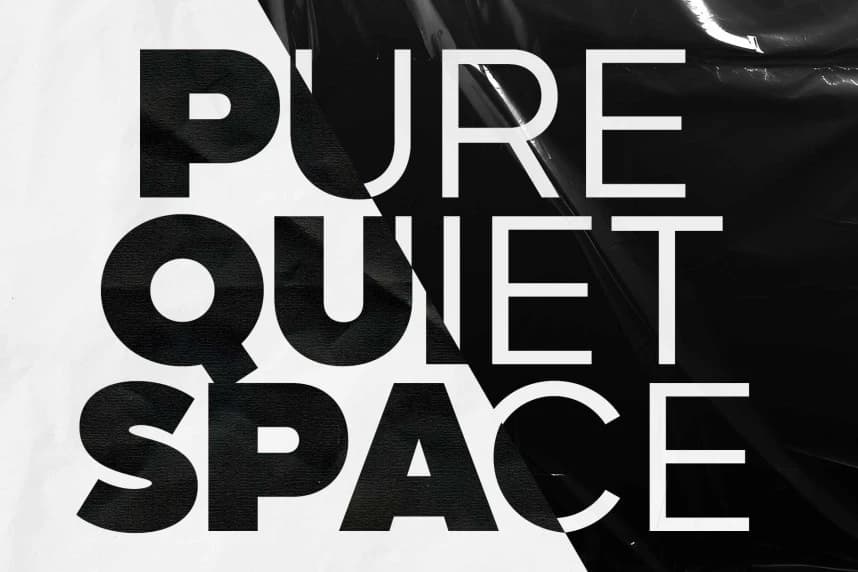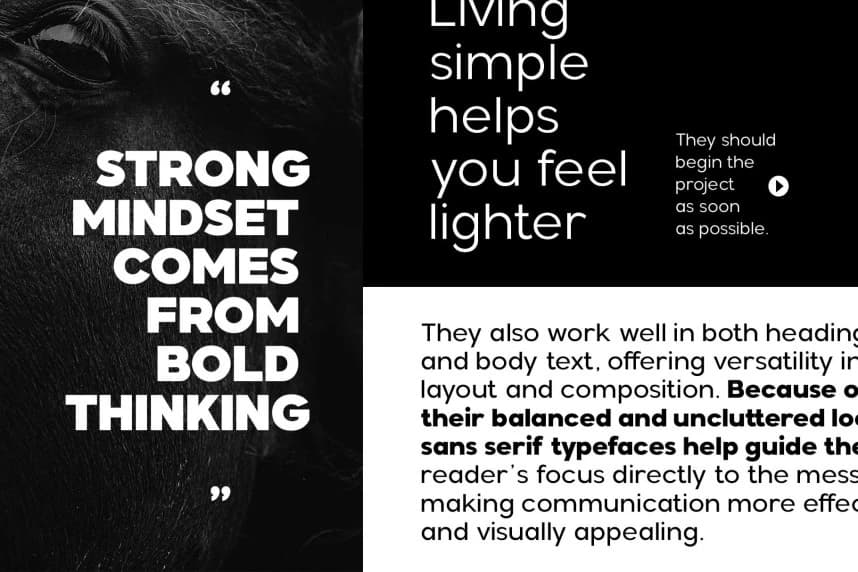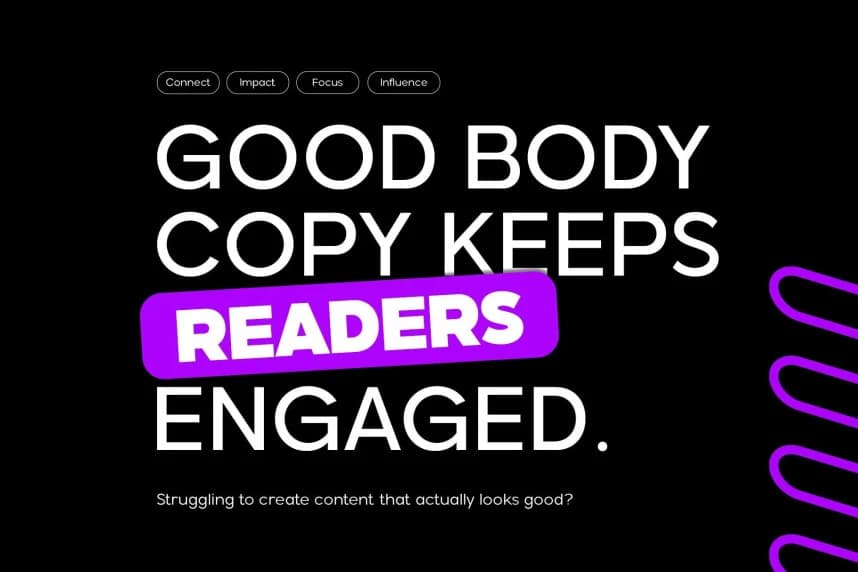
Balimo Font
Balimo Font is a modern sans serif typeface designed to deliver clarity, balance, and strong visual presence across any design. Built with a clean geometric structure and refined proportions, Balimo offers a contemporary tone that feels both minimal and expressive.